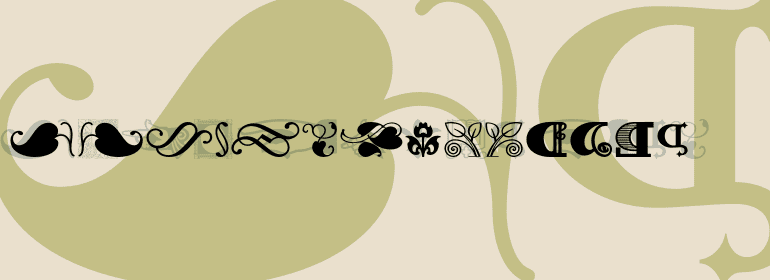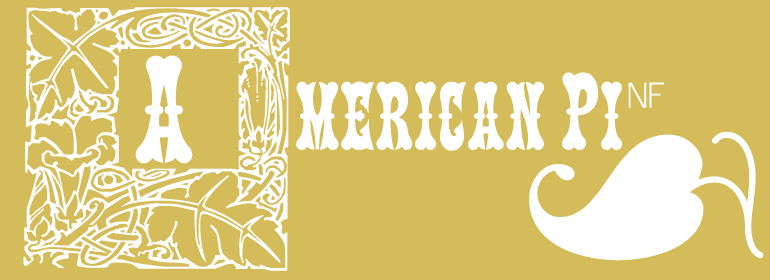
American Pi NF (1 font)
Among the goodies are fleurons, pilcrows, guidons, bishops fingers, mortised initial frames and several other useful elements to dress up your documents.
Nick's Fonts is a modest little foundry dedicated to the preservation of our rich typographic heritage. Most of the foundry's designs are based on authentic historical sources, gleaned from the massive collections of the Library of Congress. If you're looking for a font that captures the essence of the Wild West, the Gay Nineties or the Jazz Age, look here first: if it's not in the catalog, it will be soon.
A graphic designer with over thirty years of experience in print, A/V, broadcast television and the Web, Nick Curtis has been passionately interested in typography ever since he discovered a type specimen book in his early teens. He credits Push Pin Studios and the Haight-Ashbury Art Nouveau revival of the 60s as other major influences.